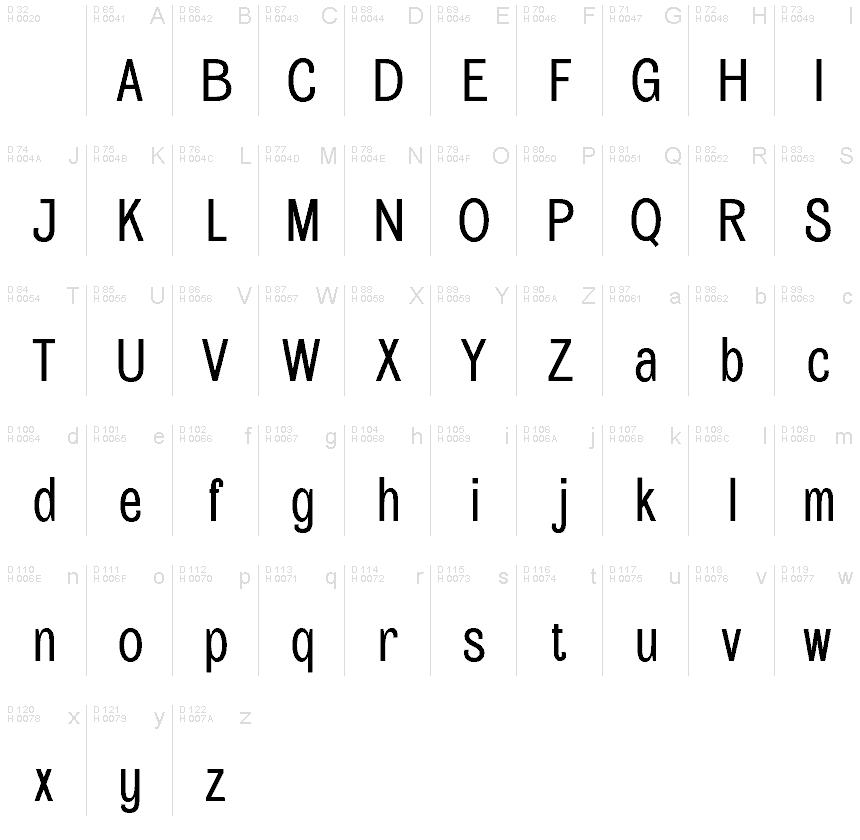
Meditera Demo Regular
Meditera font by Craft Supply Co is sophisticated sans serif condensed font which combines elegance, modernity, and refinement all in one unique style that draws the attention of each viewer. The sleek smooth lines of the font instantly claim attention while its refined presentation keeps the designs pleasant yet simple.